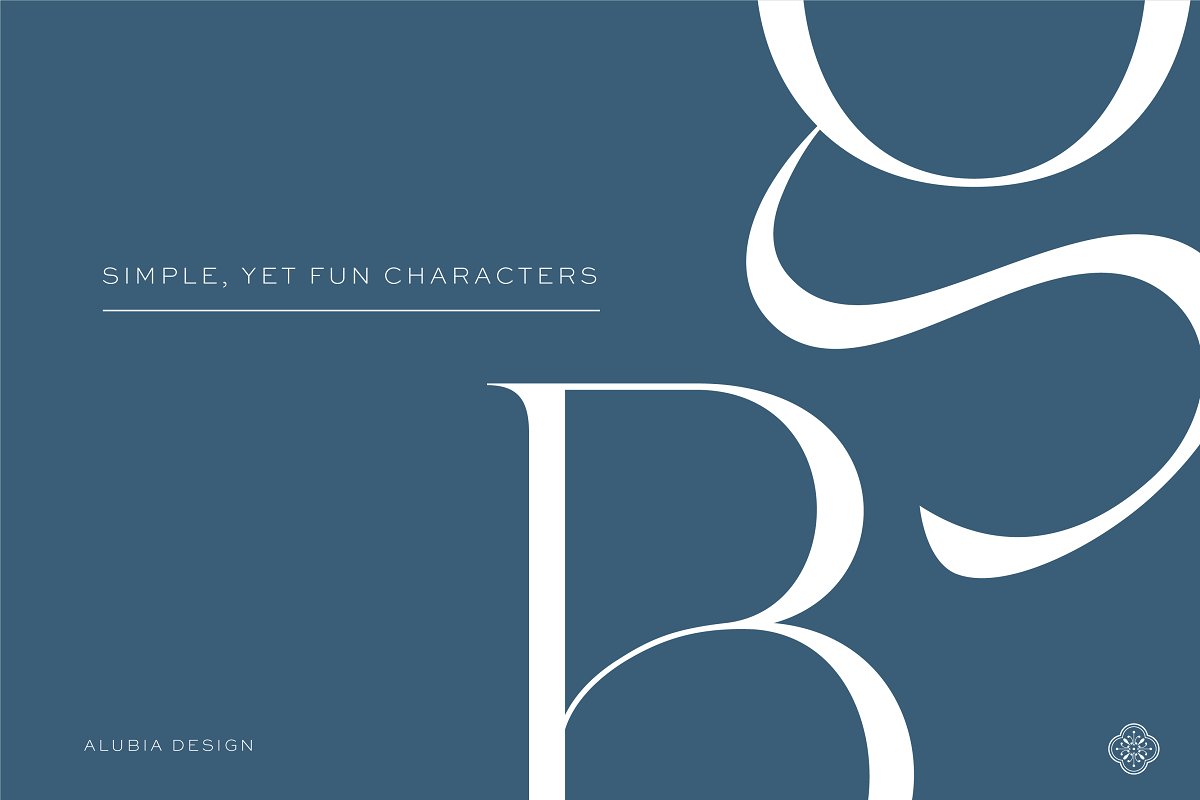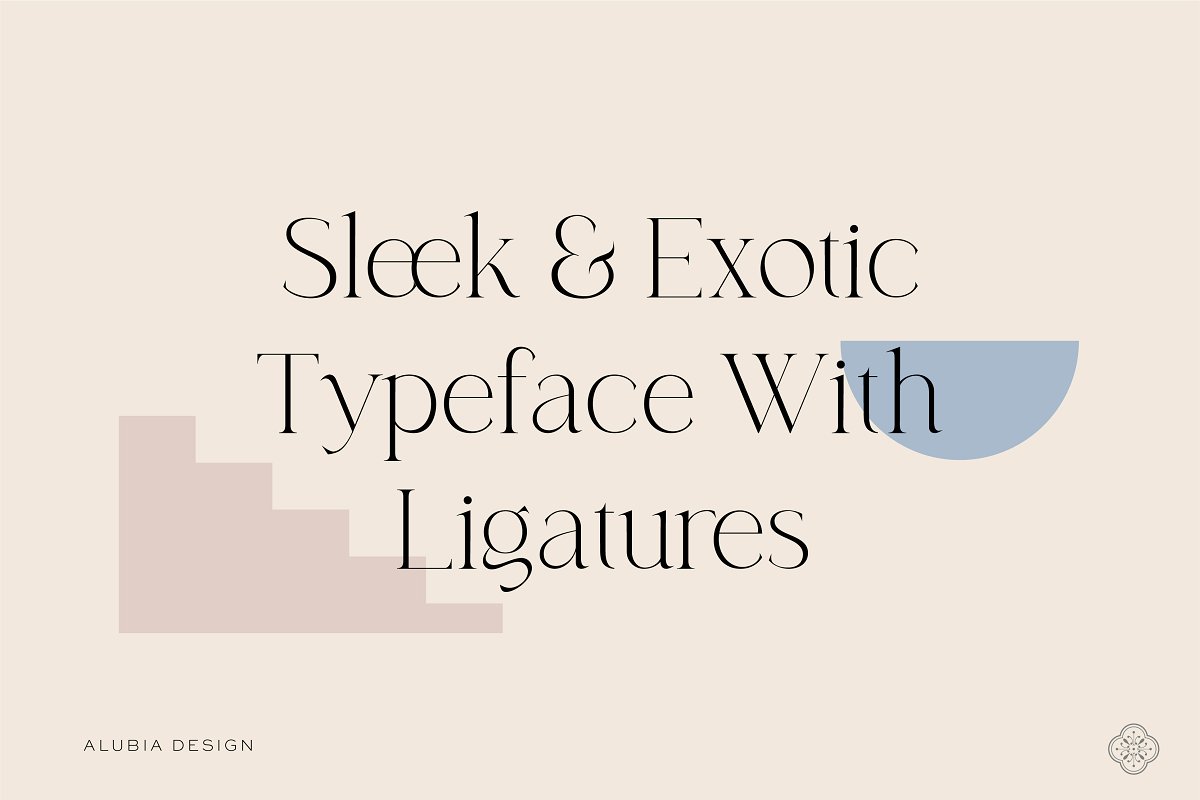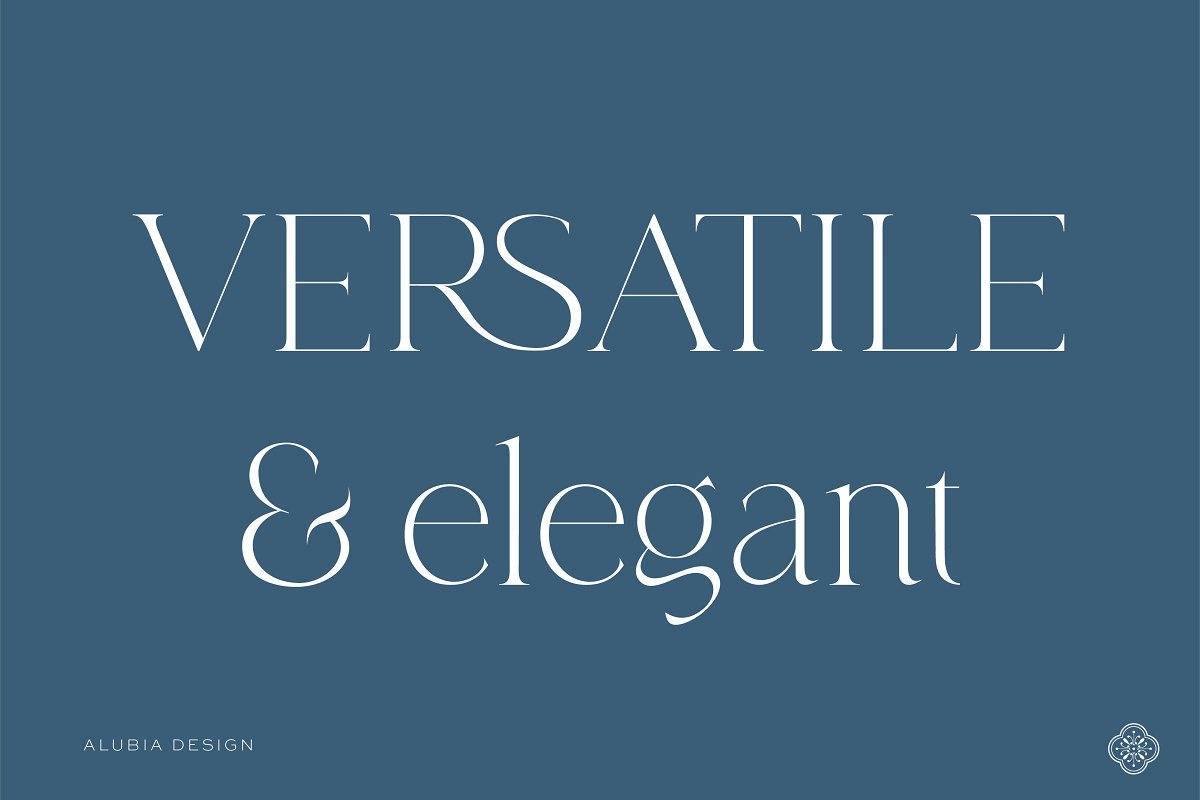
About the Casablanca Sleek & Exotic Serif
Introducing ‘CASABLANCA’ – a stunning typeface that combines the sleek and exotic characteristics of a serif font with beautifully crafted ligatures, making it an ideal choice for creating elegant and sophisticated designs, Includes full set of:OTF, WOFF, WOFF2 font files*Only REGULAR ver, included (no bold or italics) Uppercase & ligatureLowercase letters & ligatureMultilingual charactersNumbersPunctuationHow to access alternate characters:Adobe Photoshop go to Window – glyphsAdobe Illustrator go to Type – glyphsFor customers who use CANVA: Due to the limitations of using ligatures and special characters on CANVA, I have included a separate otf file inside of a folder called ‘CASABLANCA-SPECIAL-CHARACTERS-FOR-CANVA’ with letter guide PDF